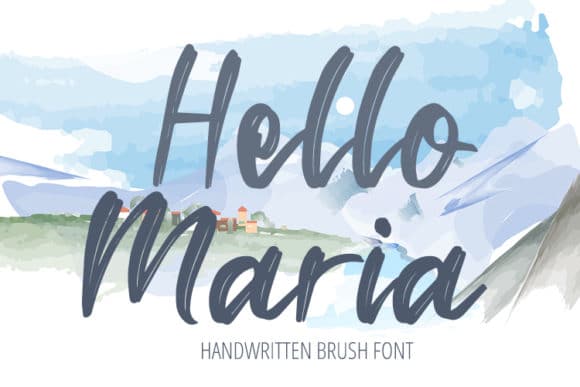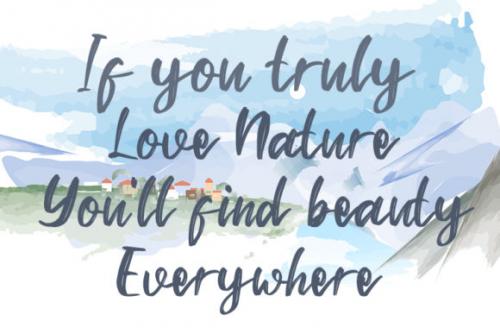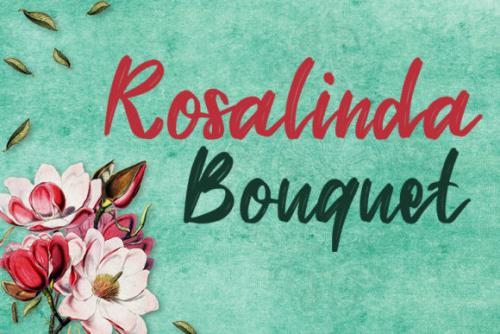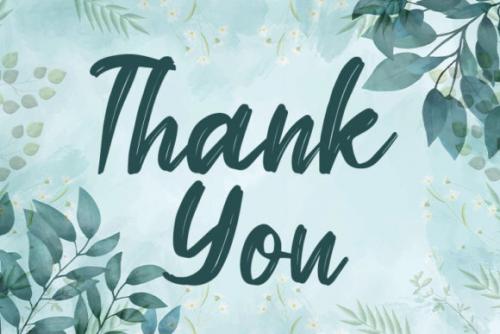
Hello Maria is a beautiful and flowing handwritten font, created to make each of your designs come alive. Its natural and unique style makes it incredibly fitting to a large pool of designs.
You can use it as a logo, badge, insignia, packaging, headline, poster, t-shirt/apparel, greeting card, and wedding invitation. Its natural and unique style makes it incredibly fitting to a large pool of designs.